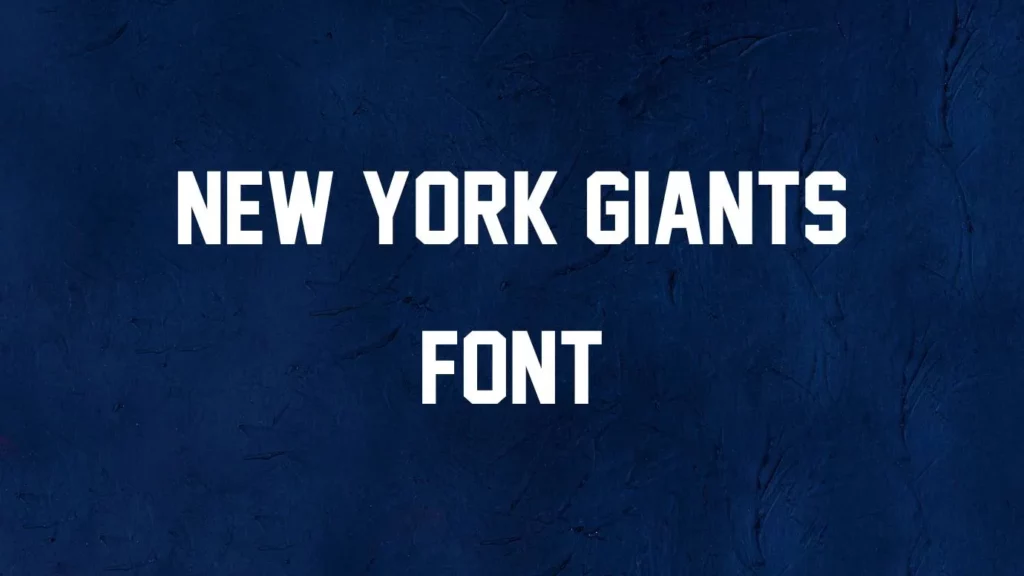
This reputable font family is used by various football teams when creating their logos. Jersey font was another name for this elegant. This elegant font has
Let's introduce the New York Giants Font, a stylish and welcoming font family with enormous popularity in the design industry. The most renowned and well-liked football team in the country is this one. In the year 1925, the NFL chose this team. The logo of the illustrious football team uses this lovely font. Many designers continue to want to use this font in their works and projects.
This reputable font family is used by various football teams when creating their logos. Jersey font was another name for this elegant. This elegant font has more than 66 distinctive and lovely characters. Its special characters include symbols, icons, lowercase letters, and capital letters. In every project, these characters produce the best results.
This sharp and tidy feature font offers an online tool generator that aids in various graphic designs. All of your graphic designs will have the softest and most impressive appearance thanks to this tool.
This gorgeous typeface is a part of the Display typeface family. Mohammed Rahman, a talented designer, put a lot of effort into creating this contemporary font in 2010.
This font is utilized widely due to its appealing and impressive appearance. This font is the first choice of numerous brands and designers for their projects. This fantastic font family can be used for many different designs, including book covers, comic book covers, and logos for numerous organizations.
The best headings and titling should be in this warm typeface. This font family is used by YouTubers for their thumbnails. Various social media posts use this fashionable font. This font was used to create the logos for the most well-known American football teams.
This display typeface, New York Giants Font, which is part of a family of display fonts, is shown in the given image. It has a strong, bold texture that can give your work a unique appearance.
Mohammed Rahman, a Muslim designer, created this display typeface, which was released in 2010.
Many display fonts are the closest to this typeface, but Riva, Amazon, Lambada, HT Sina, and BMW